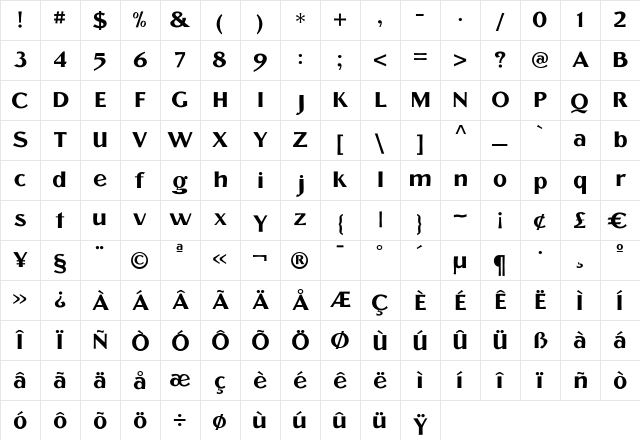
Complete Julius Plain Regular glyph index. Displaying only characters natively supported by Julius Plain Regular font.
Julius Plain is a composed and adaptable typeface that performs quietly and consistently across a wide range of design contexts.